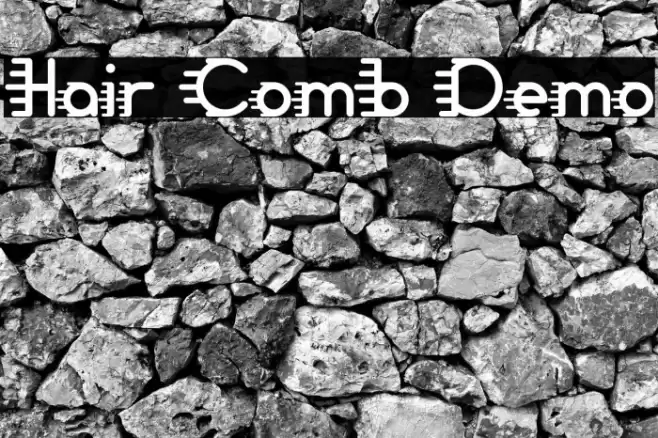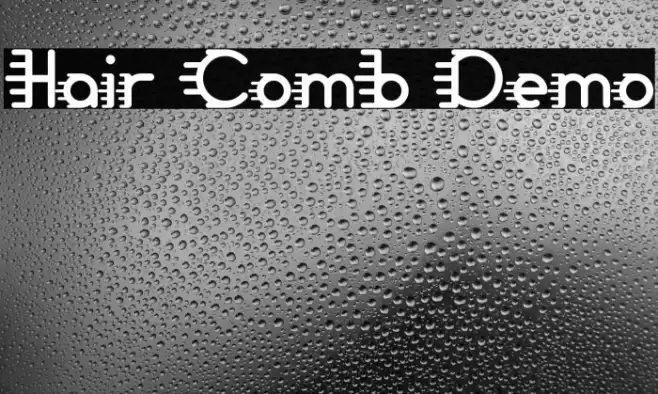
Hair Comb Demo Font
Hair Comb Demo Description
This font features a unique and playful design with horizontal lines extending from the vertical strokes of each character, resembling the teeth of a comb. The letters are bold and rounded, giving them a friendly and approachable appearance. The consistent use of horizontal lines across both uppercase and lowercase letters creates a cohesive and distinctive look. The numbers and special characters maintain this theme, ensuring uniformity throughout the typeface. This font stands out with its decorative elements, making it ideal for creative and eye-catching designs.
A playful, decorative font with comb-like horizontal lines extending from each character from Decorative fonts.
- Proposed Projects: Ideal for creative projects such as posters, logos, and branding materials where a unique and playful aesthetic is desired.